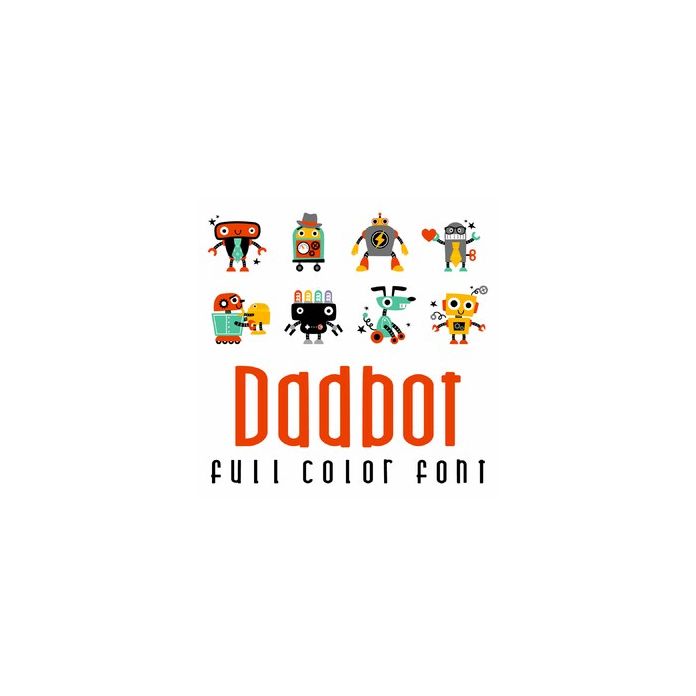
This adorable full color doodlebat font features fun little robots. Perfect for cards, crafts, gifts, decor, scrap book pages, planner stickers and more! And with several dadlike images its perfect for Father's Day too!